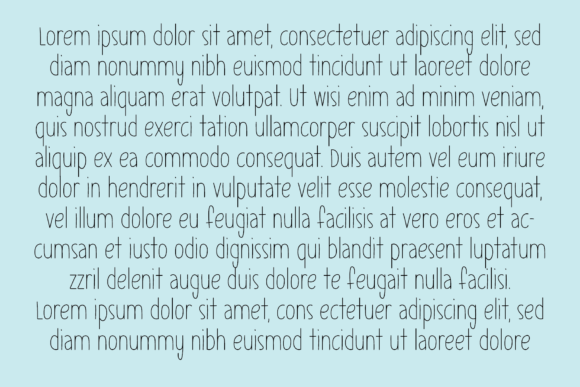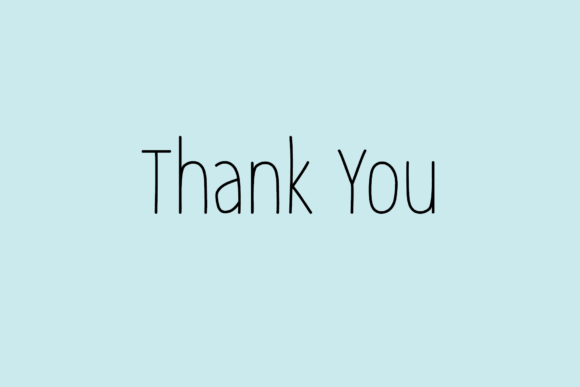
Introduction to Mydaddy Font
Mydaddy is a simple and friendly handwritten font.
Whimsical and a bit quirky, this font will brighten up each of your designs Add it confidently to your projects, and you will love the results.
Key Features of Mydaddy Font
Why Choose Mydaddy Font?
Mydaddy Font offers exceptional quality and versatility, making it a valuable addition to your design toolkit. Whether you’re creating for personal projects or commercial use, Mydaddy Font delivers professional results.